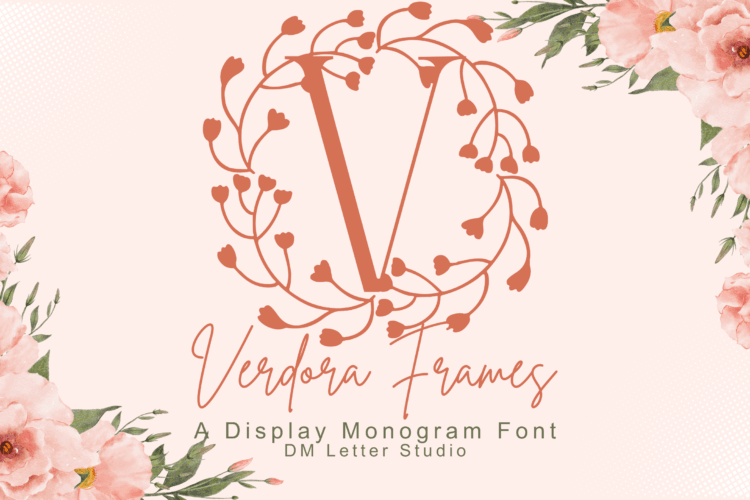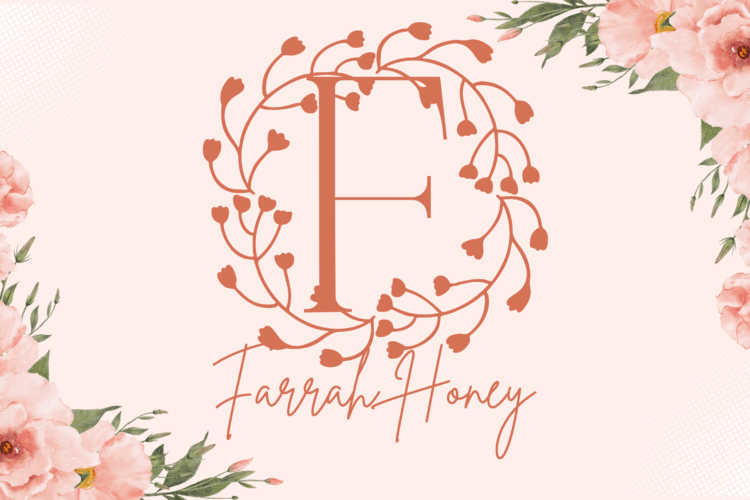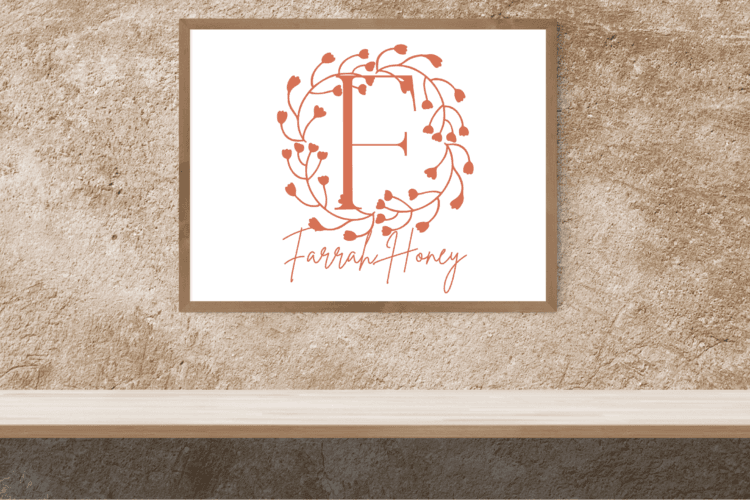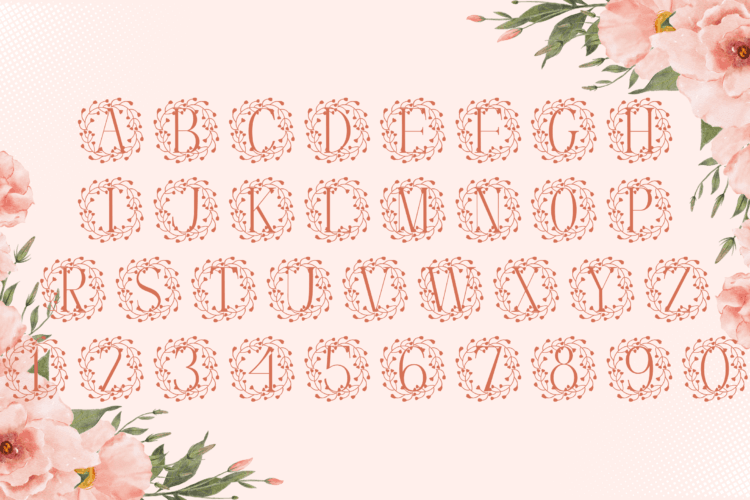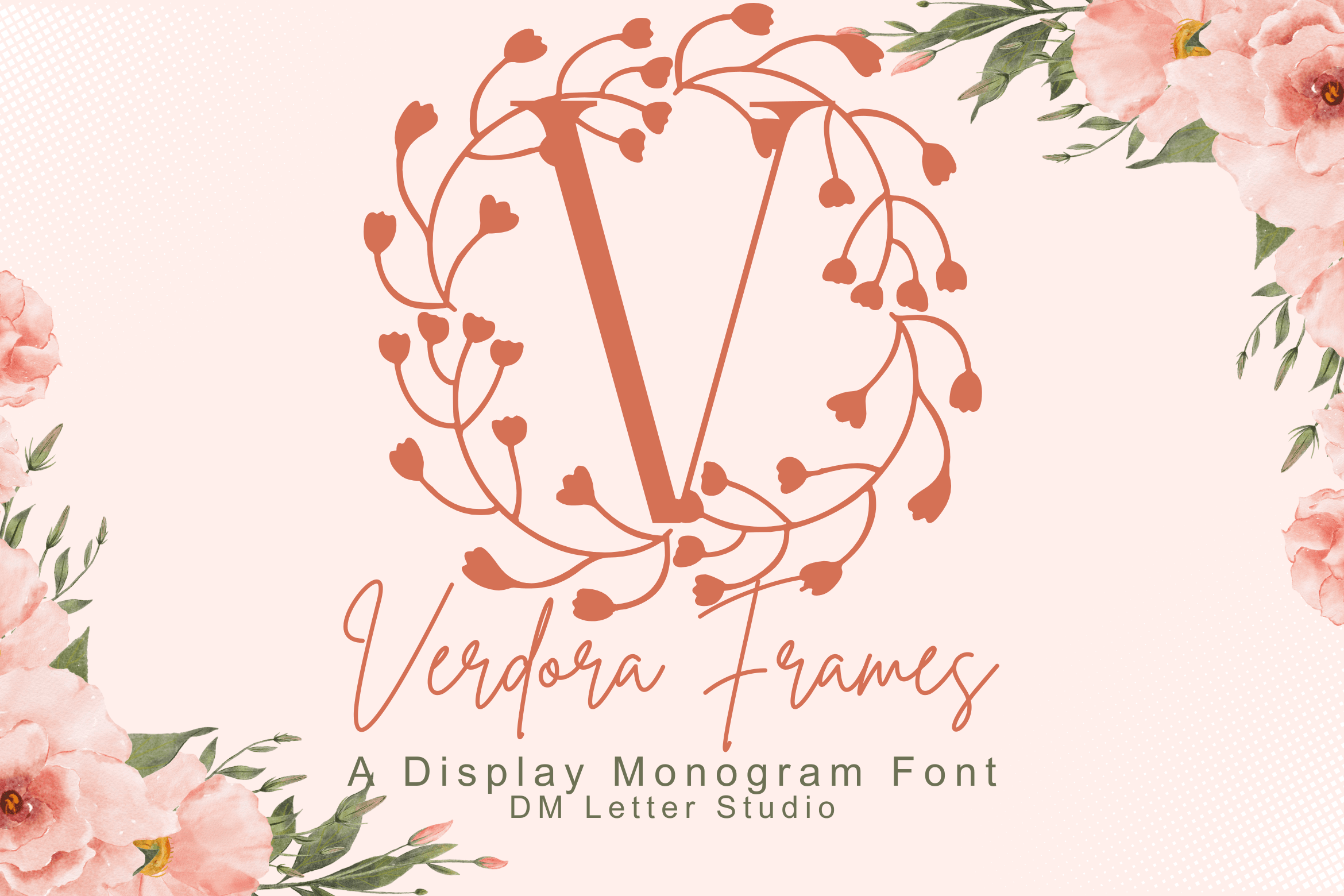
Meet Verdora Frames, the Monogram Font
Verdora Frames Monogram Font turns initials into elegant framed emblems inspired by soft greenery and classic borders. Each letter is supported by a clean frame that adds structure without overpowering the design. The result feels refined, balanced, and premium. Letter shapes stay clear at any size, so small tags print sharp while larger designs look composed and gift-ready. Use Verdora Frames for weddings, boutique logos, stationery, keepsake gifts, and luxury packaging. As a result, your designs feel finished and intentional with very little setup.
Fast layouts with the Verdora Frames Monogram Font
Start with a single initial and let the frame define the layout. After that, add names or dates using a separate supporting font below or around the frame. Because Verdora Frames holds detail at small sizes, labels, stickers, cards, and favor tags stay readable and clean. In addition, it works beautifully with oval borders, square seals, thin dividers, and light botanical accents. Finally, save color palettes like sage and cream, eucalyptus and ivory, charcoal and soft gold, or dusty blue and linen to reuse across collections.
Creative uses and quick wins
Wedding monograms, invitations, and save-the-date cards
Logo seals, certificates, and boutique brand marks
Gift tags, stickers, and keepsake packaging
Labels for candles, soap, skincare, perfume, and handmade goods
Alphabet characters (A–Z)
Numbers (0–9)
Design tips for Verdora Frames Monogram Font
Let the framed initial stay as the focal point and keep extra text minimal. Also, allow enough spacing around the frame so details remain clear. For a premium finish, try foil stamping, embossing, or letterpress on thick stock. Finally, export at 300 DPI for print and at 2× size for web so edges stay smooth everywhere.